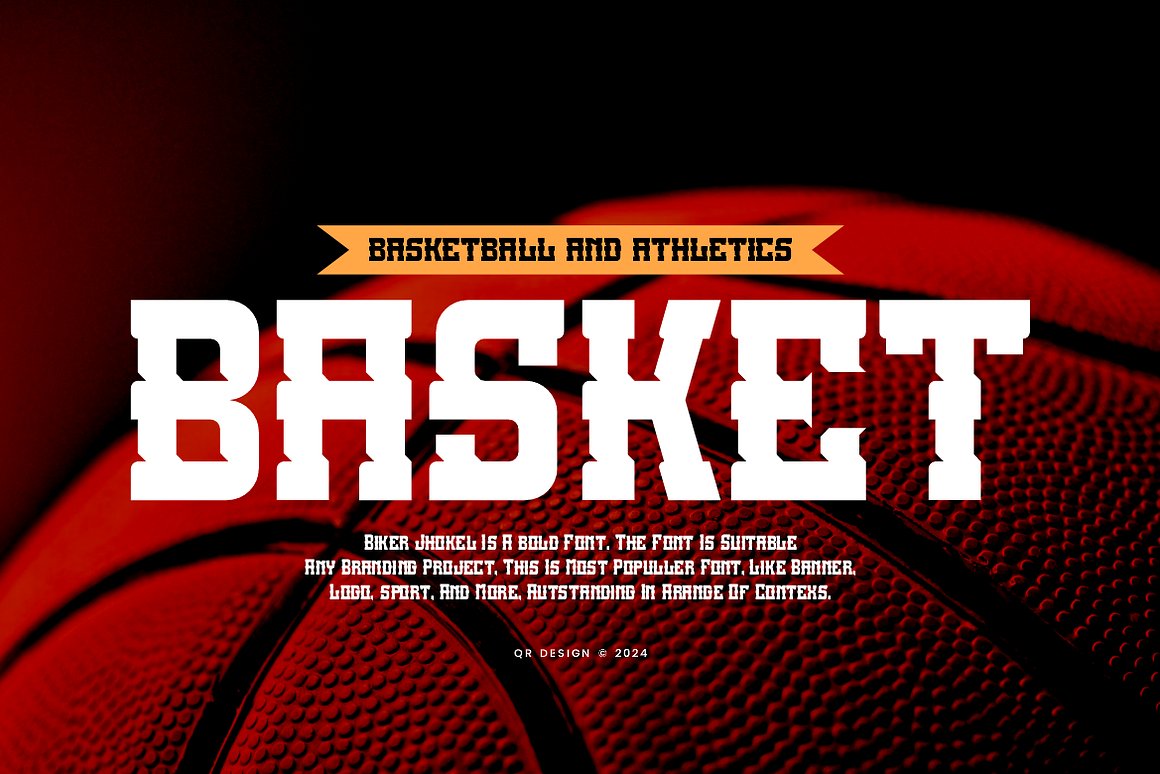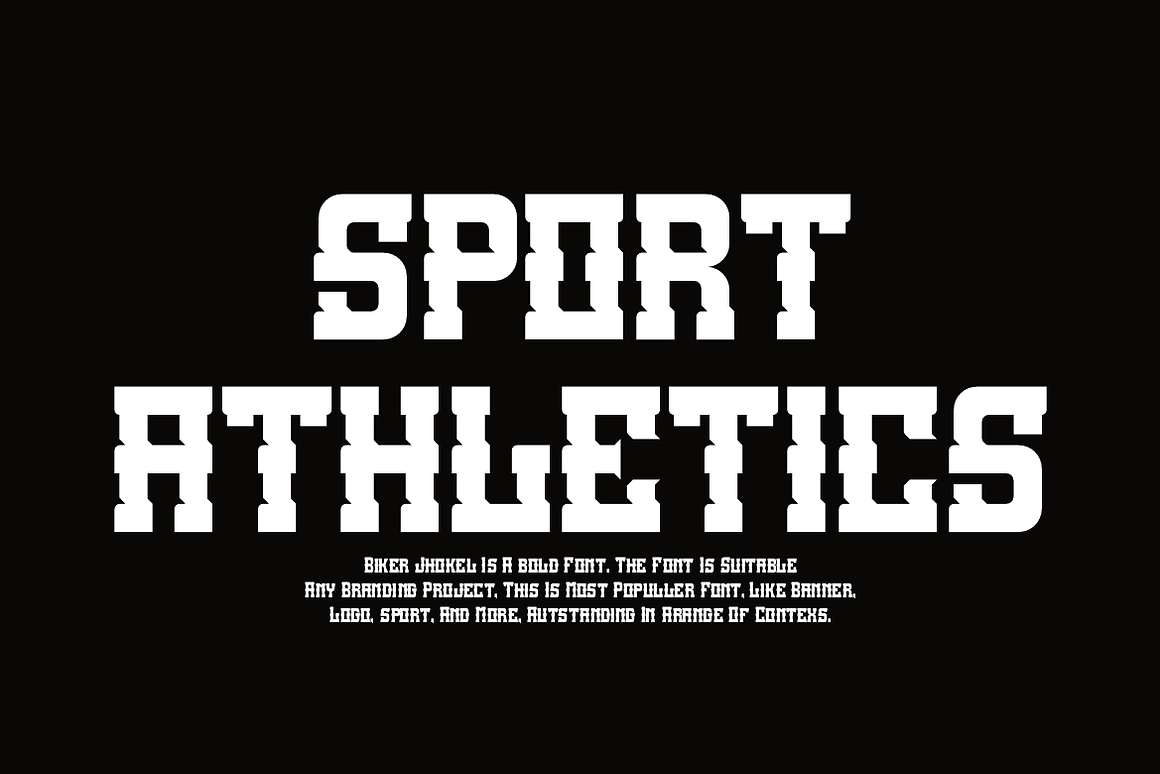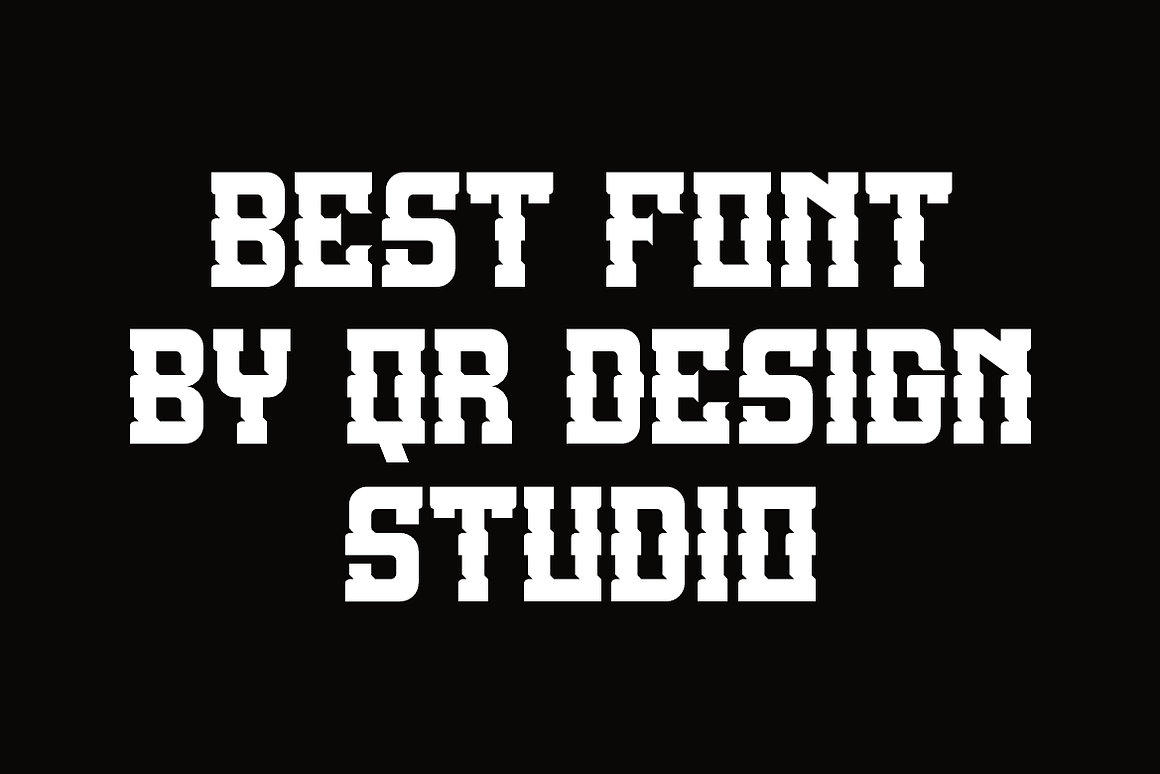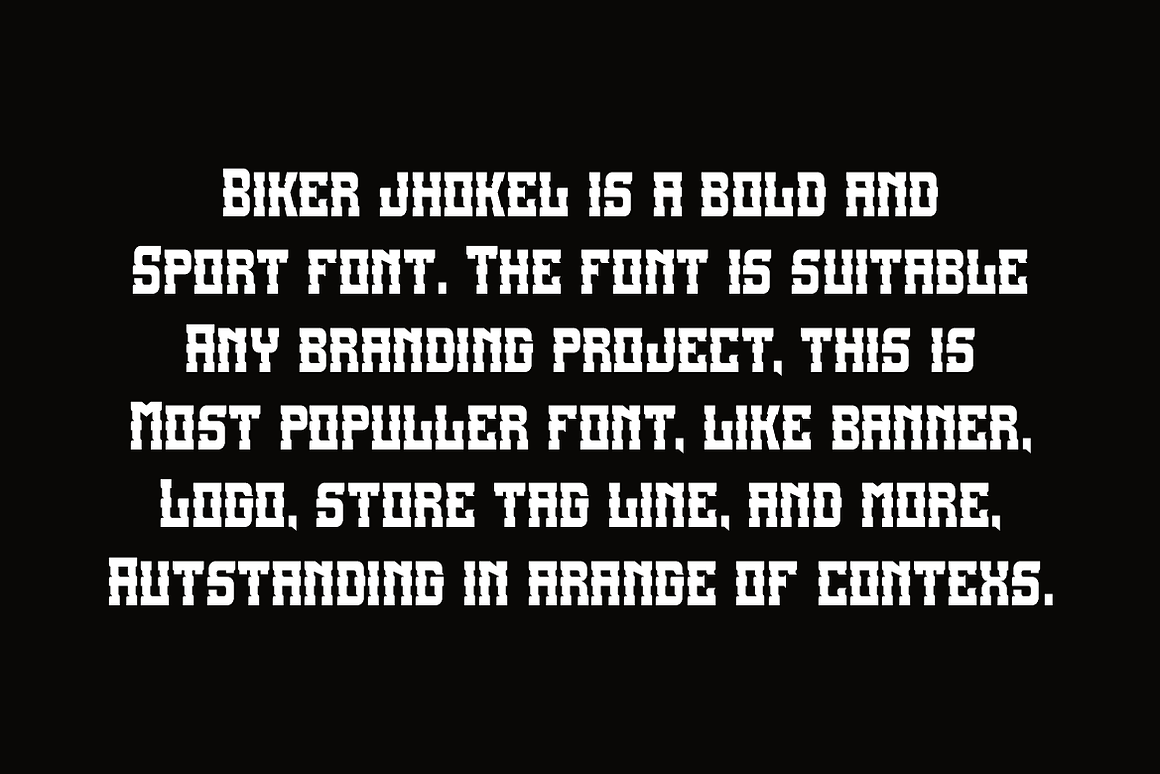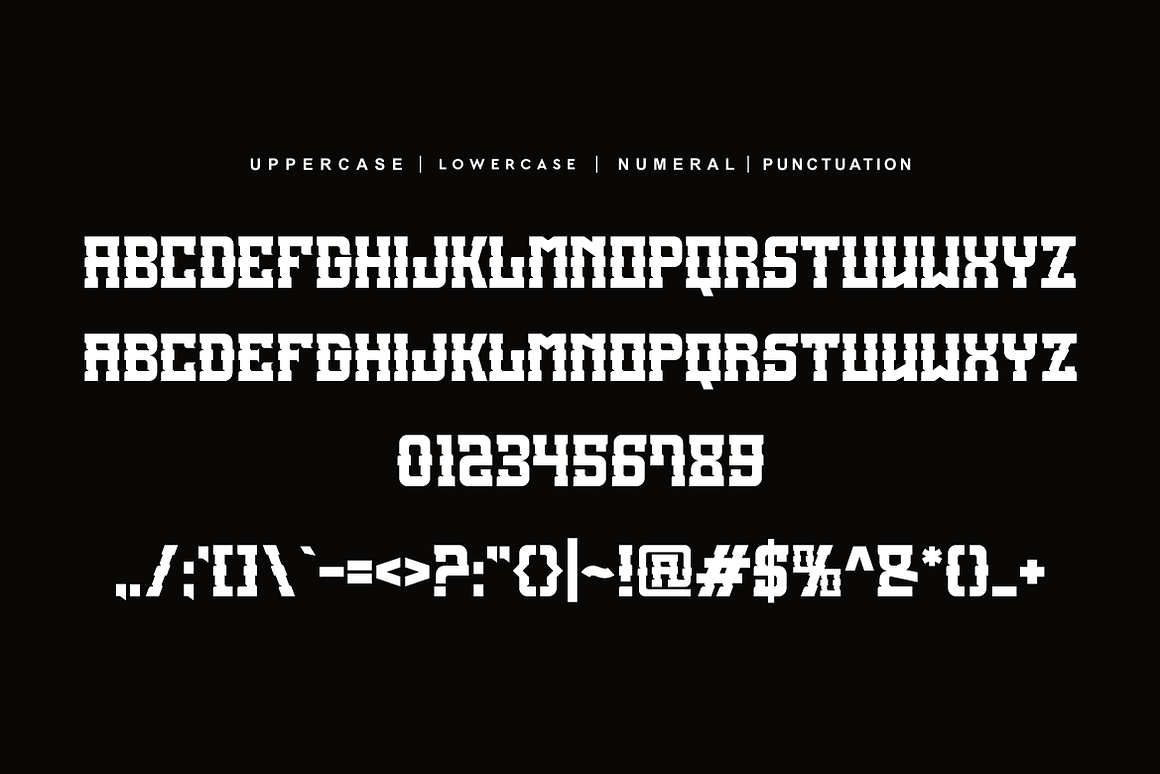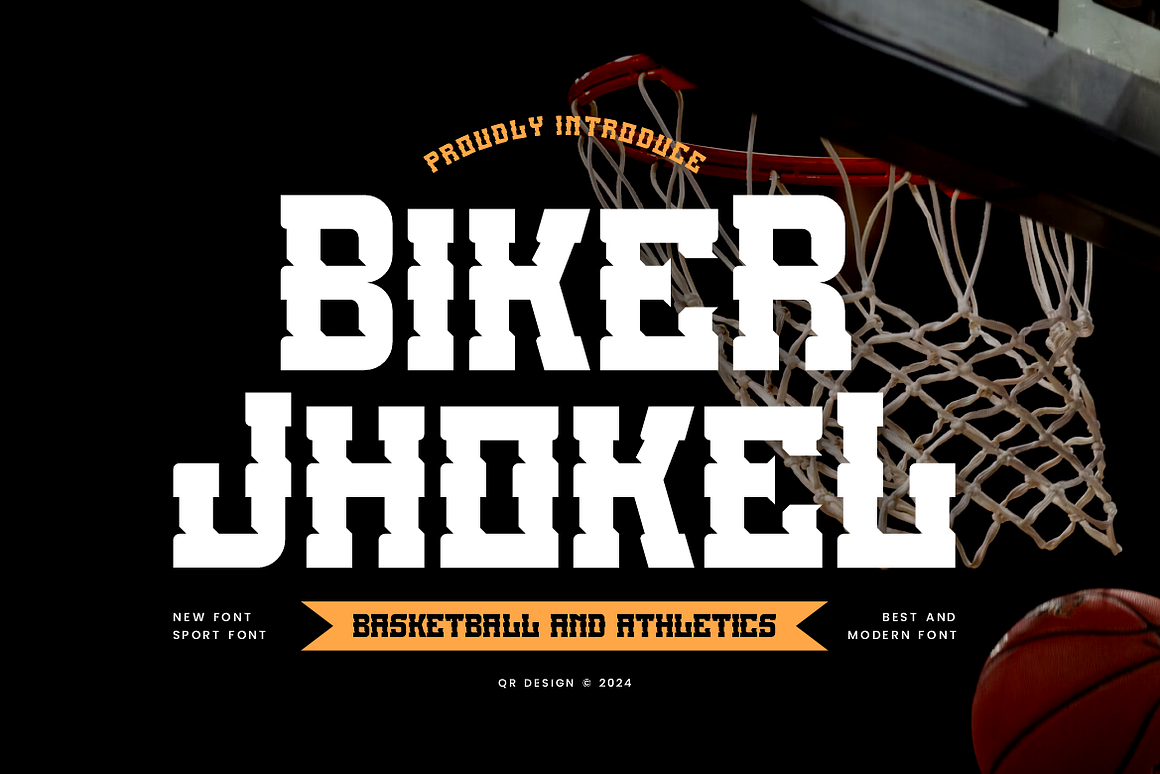
Biker Jhokel Athletics & Basketball Font
Biker Jhokel Font is a bold and authentic display font. The font is suitable for any branding project like poster, logo, sport, and many more. Outstanding in a wide range of contexts. Included Biker Jhokel.OTF Biker Jhokel.TTF Biker Jhokel.WOFF